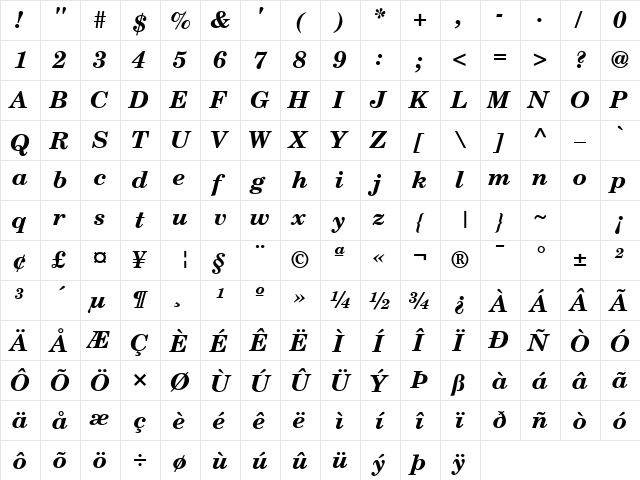
Century Schoolbook BOLDITALIC Font Preview
Design Context for Century Schoolbook Typeface
Century Schoolbook takes a measured approach to typography — its balanced proportions and neutral character make it a reliable workhorse for both digital and print work. Its italic angle brings a sense of urgency and motion to the letterforms. The heavy weight commands attention and anchors typographic hierarchies.
Pro Tip: Try Century Schoolbook for annotation and caption copy alongside an upright companion — the contrast in angle creates a dynamic but ordered typographic system.